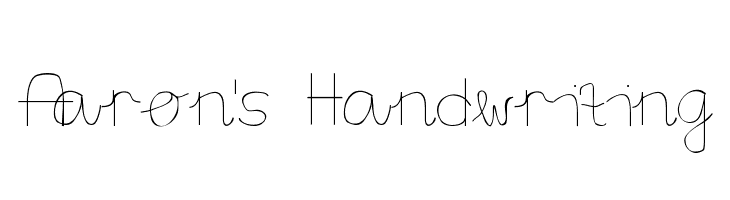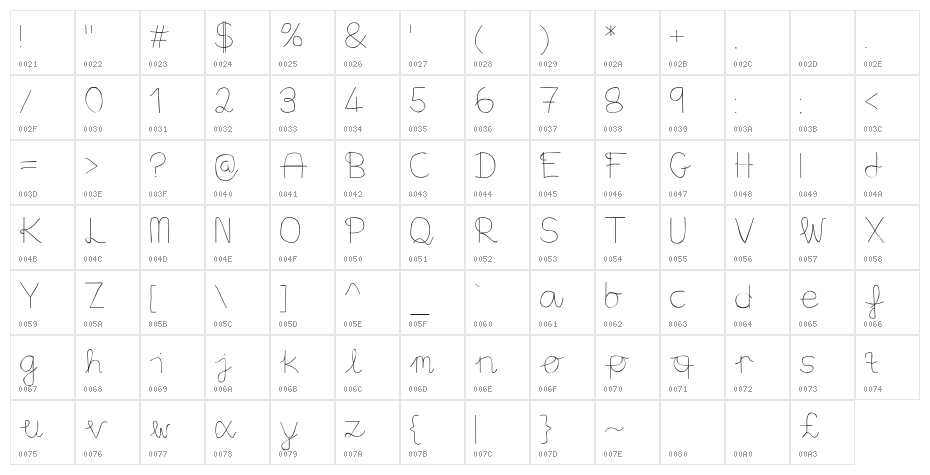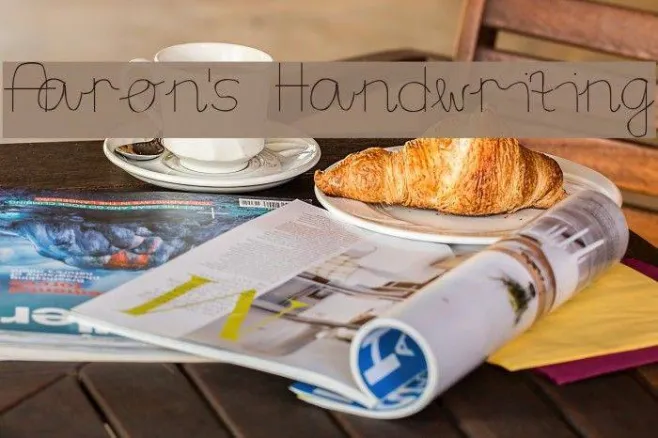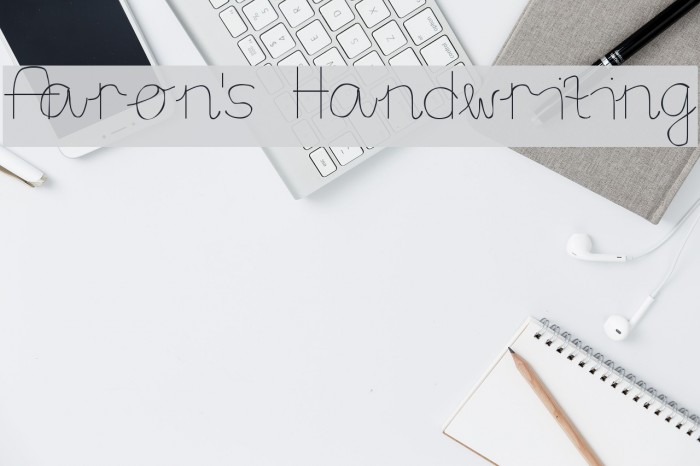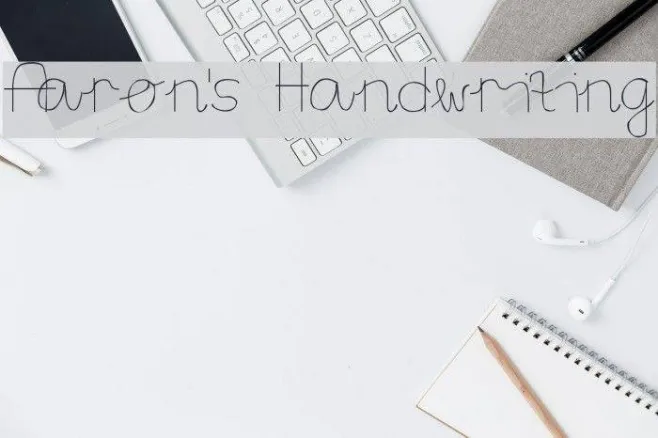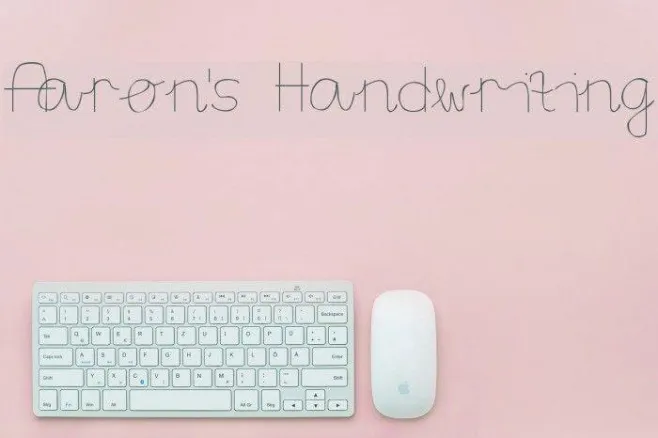
Aaron's Handwriting Font
Aaron's Handwriting Description
This font features a unique, handwritten style with a playful and whimsical touch. The letters are formed with continuous, flowing lines that give it an organic and personal feel. The uppercase letters are tall and slender, while the lowercase letters maintain a consistent height, creating a harmonious balance. Numbers and special characters follow the same fluid design, ensuring a cohesive look across all text. The font's thin strokes and open loops add to its airy and light appearance, making it suitable for creative and informal projects.